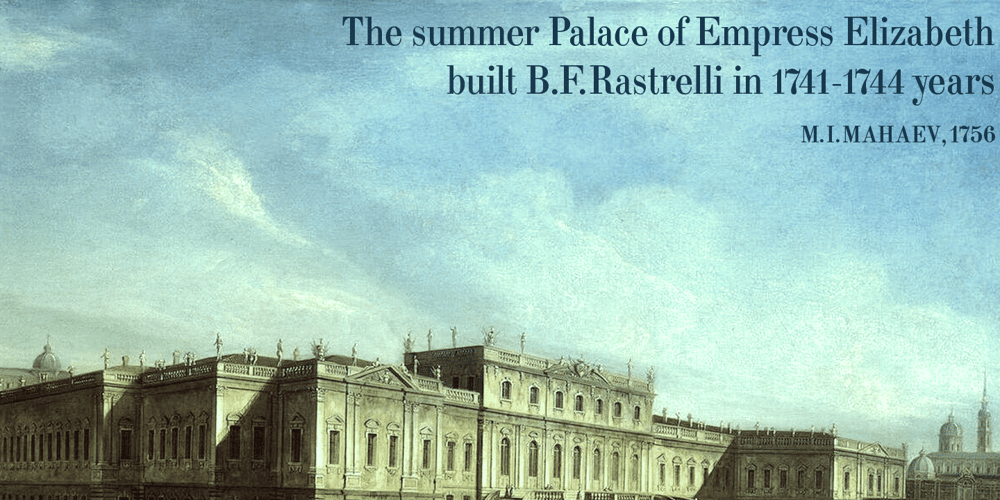
Elizabeth Font Family was designed by Lyubov Kuznetsova and published by ParaType. Elizabeth contains 2 styles and family package options. The hand composition typeface was developed at the Ossip Lehmann type foundry (St. Petersburg) in 1904-07 (after designs by Alexander Leo?). It was redeveloped at Polygraphmash in 1960s for slugcasting composition. Named after Russian Empress Elizabeth I (1709-61). Based on typefaces of George Revillon type foundry of 1840s, though some characters’ shapes were redrawn similar to Russian Academy of Sciences typefaces (mid-18th century). Sharp contrast, strong weight Modern Serif with archaic flavor. The typeface is useful in text and display composition, in fiction, historical, and art books, especially connected to the 18th or 19th centuries. It looks great in Russian classical literature such as Pushkin and Gogol works. The revised, improved and completed digital version was designed at ParaType in 2001 by Lyubov Kuznetsova.